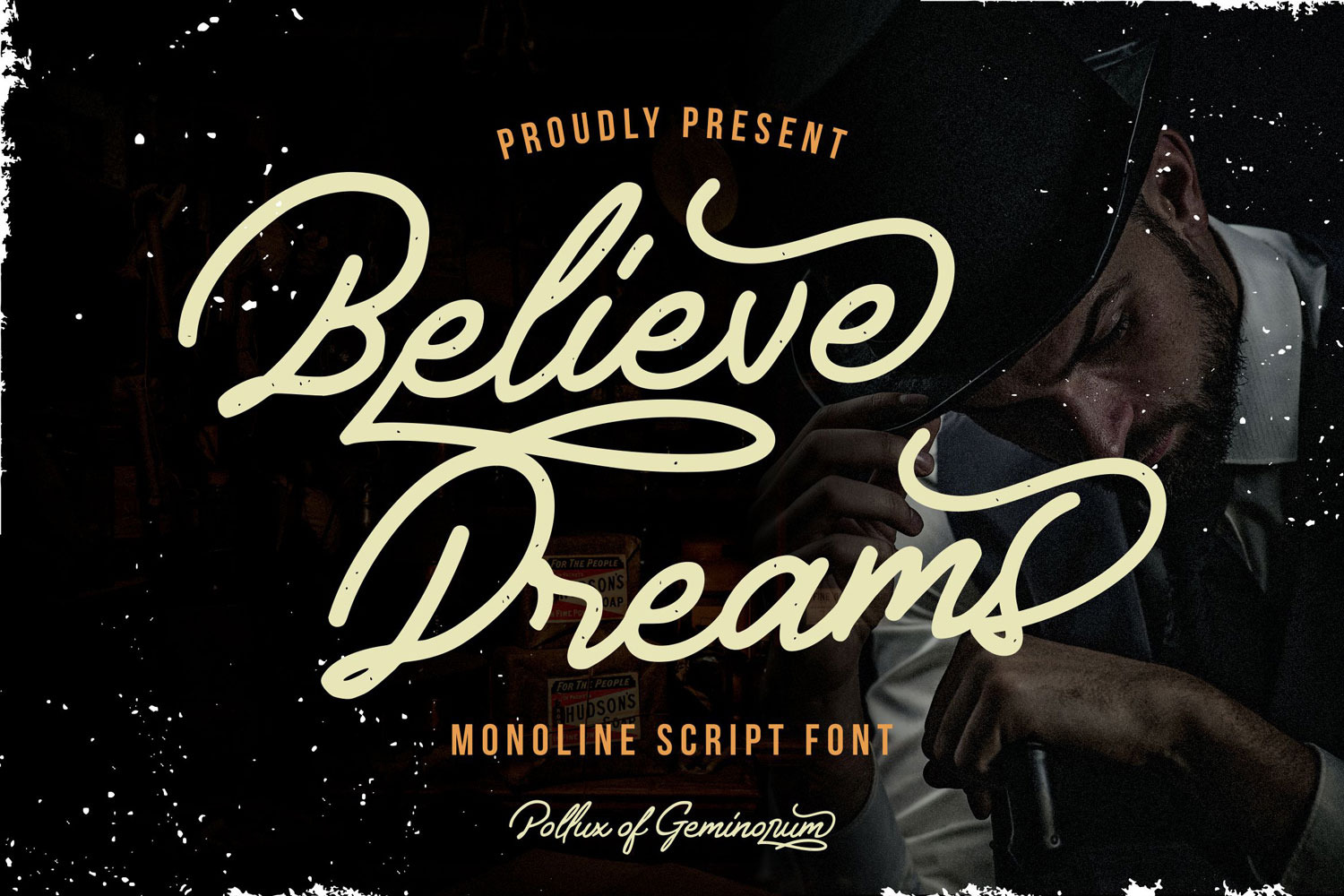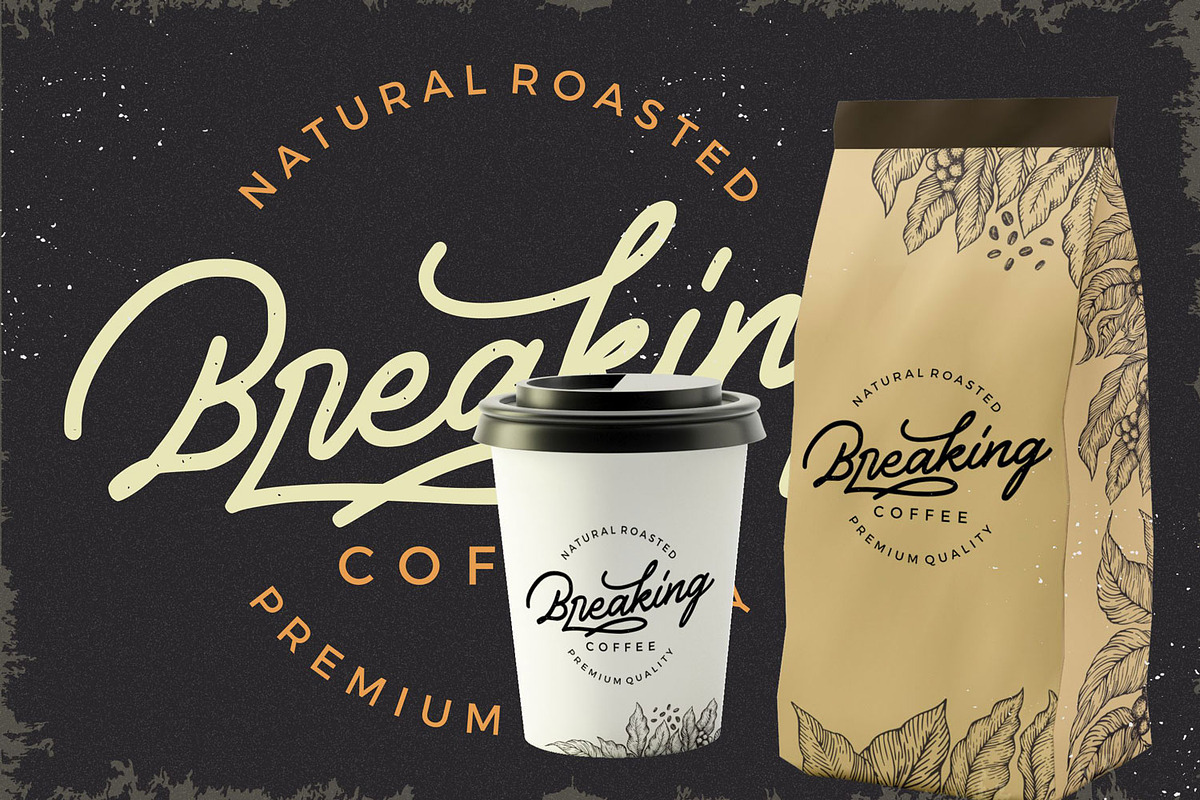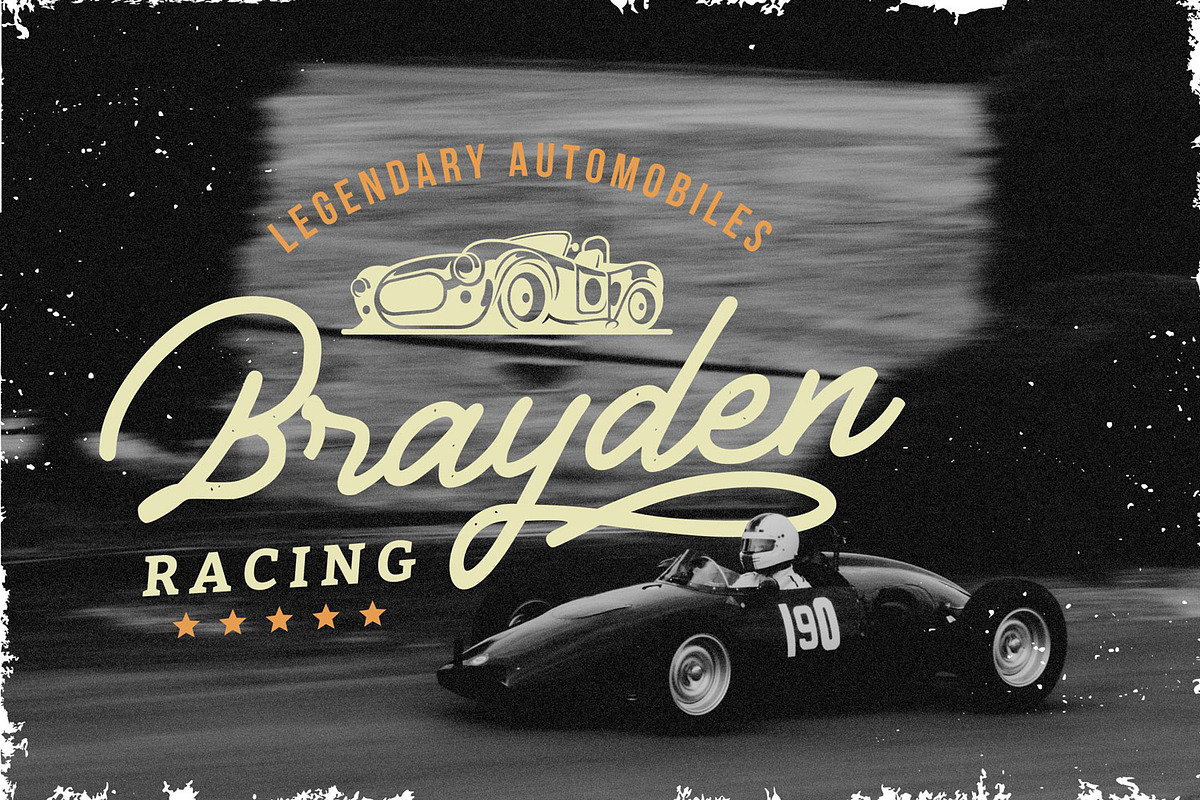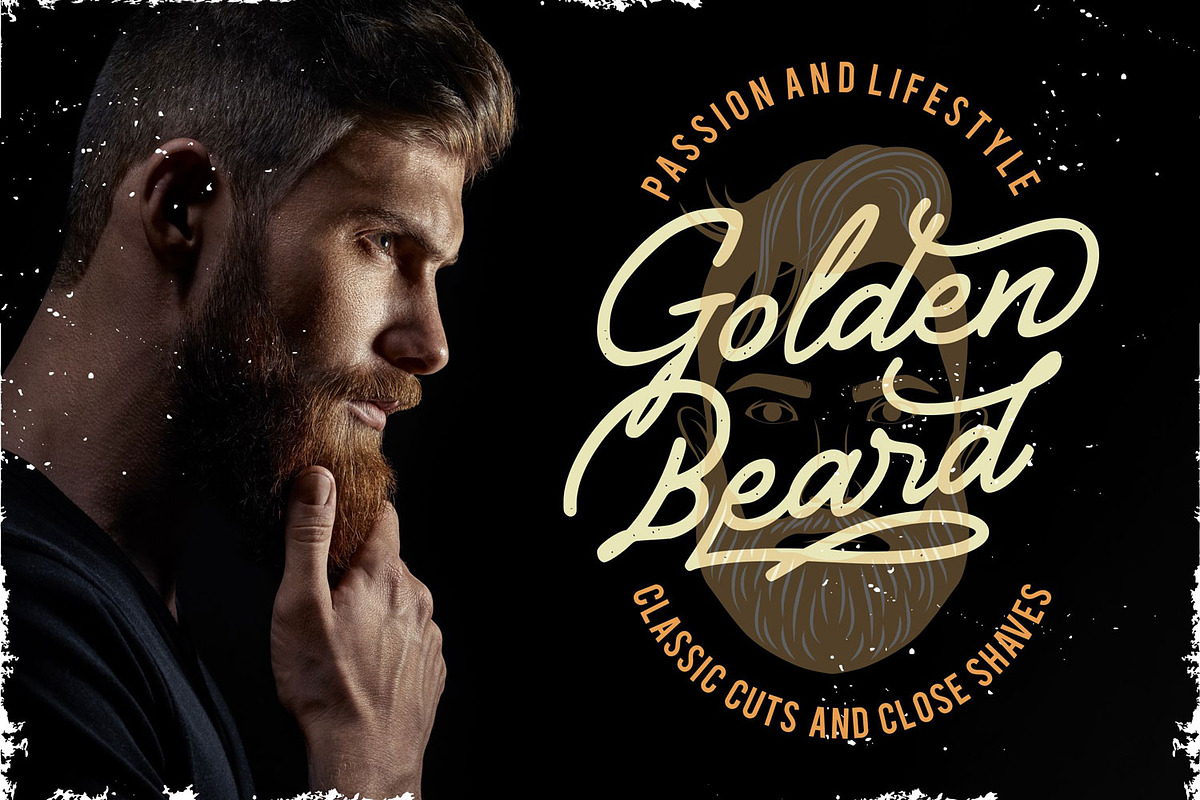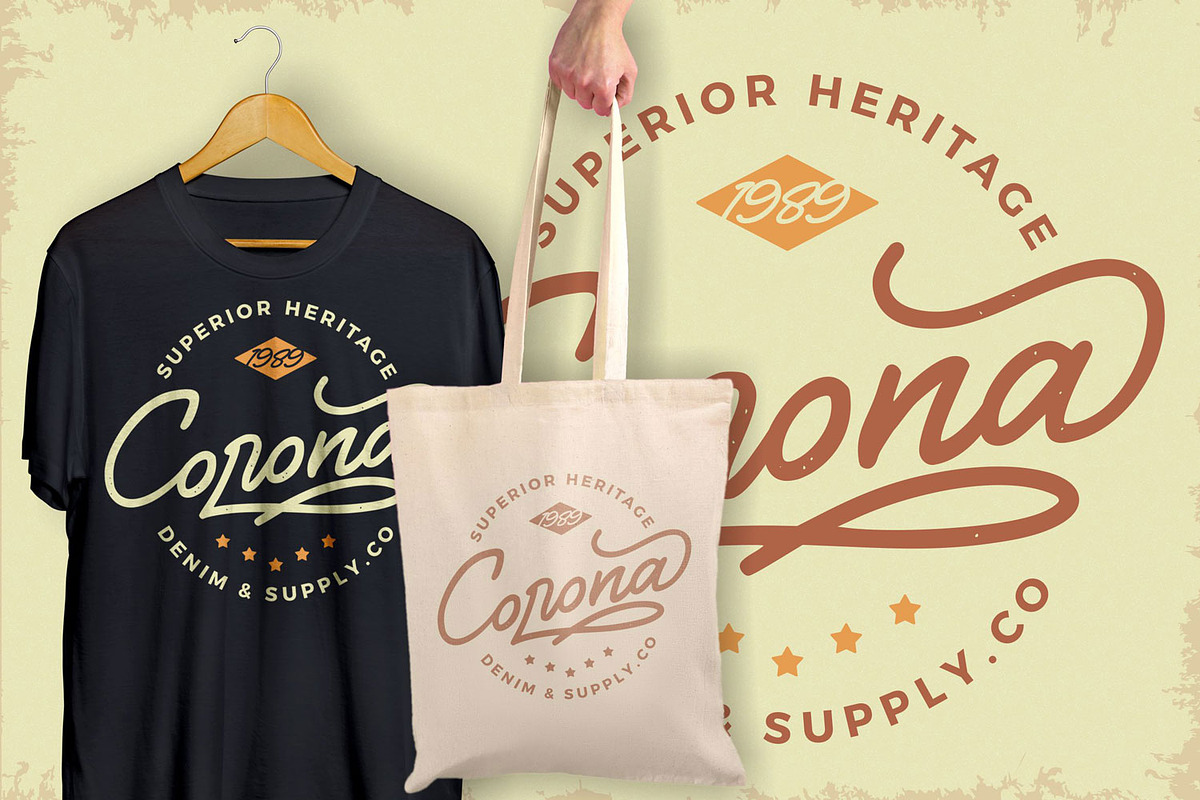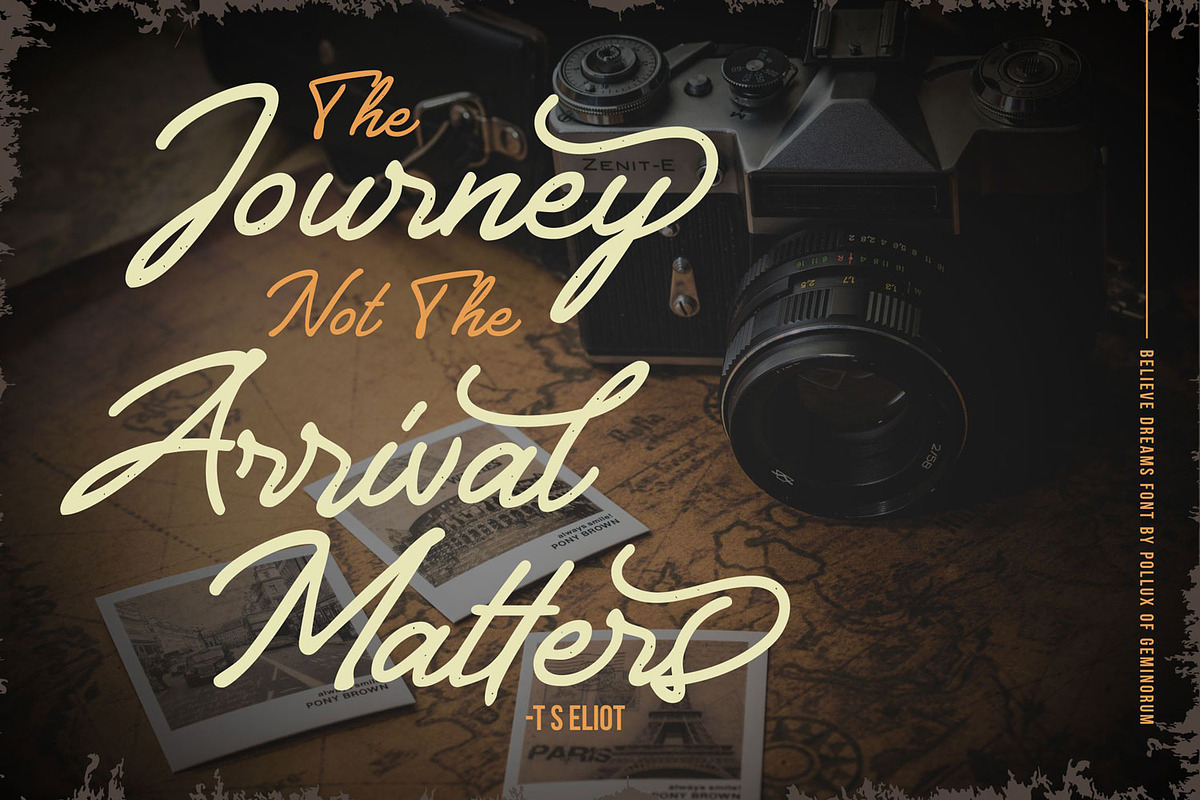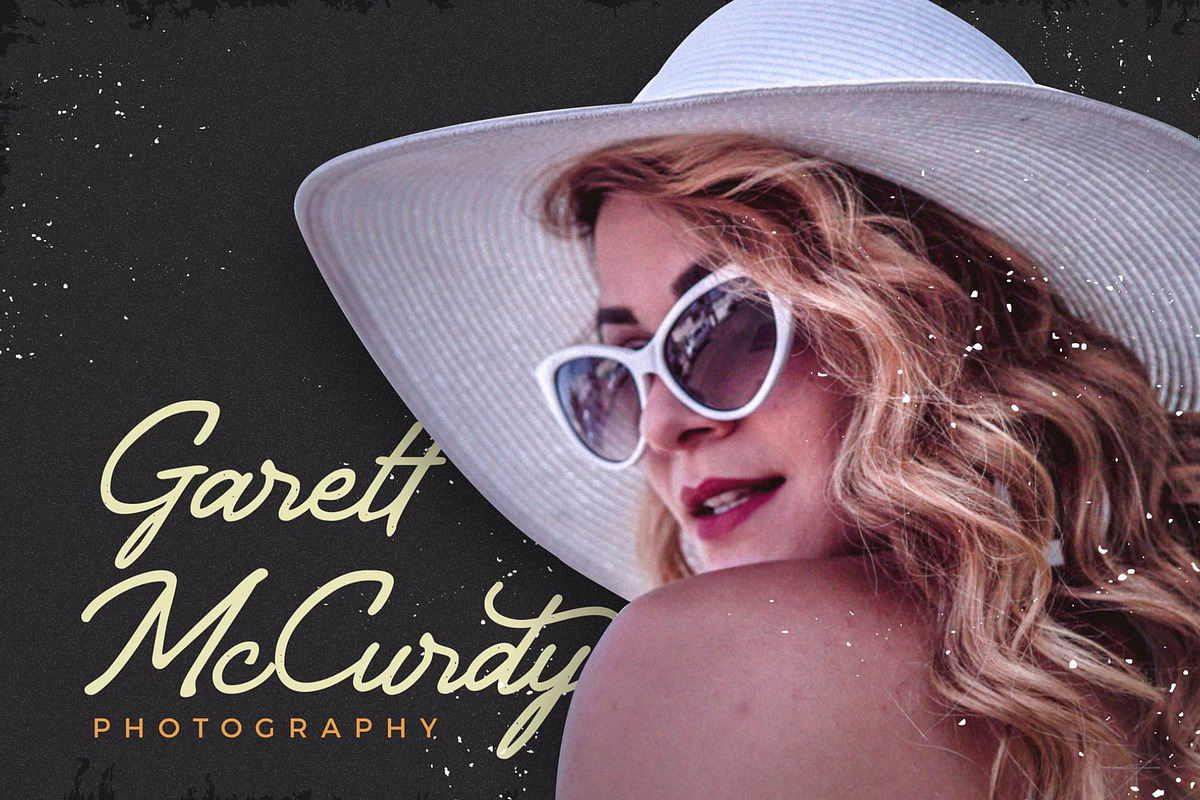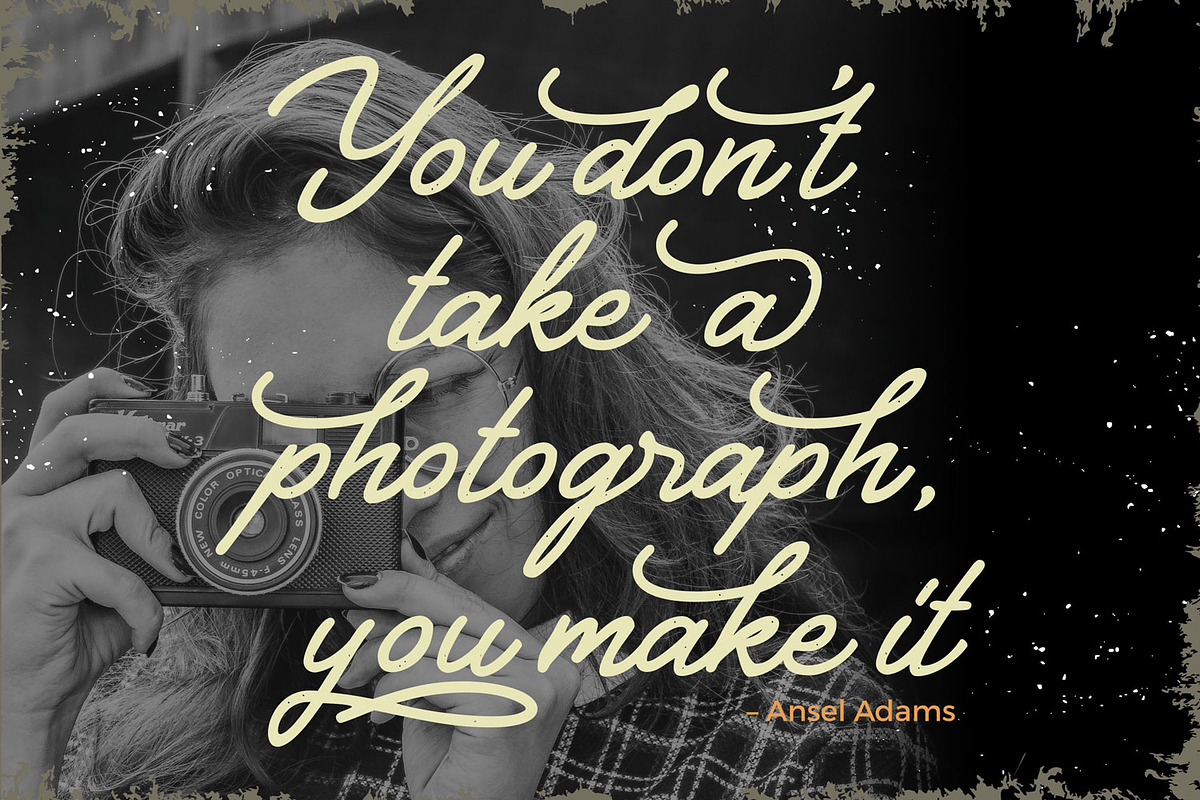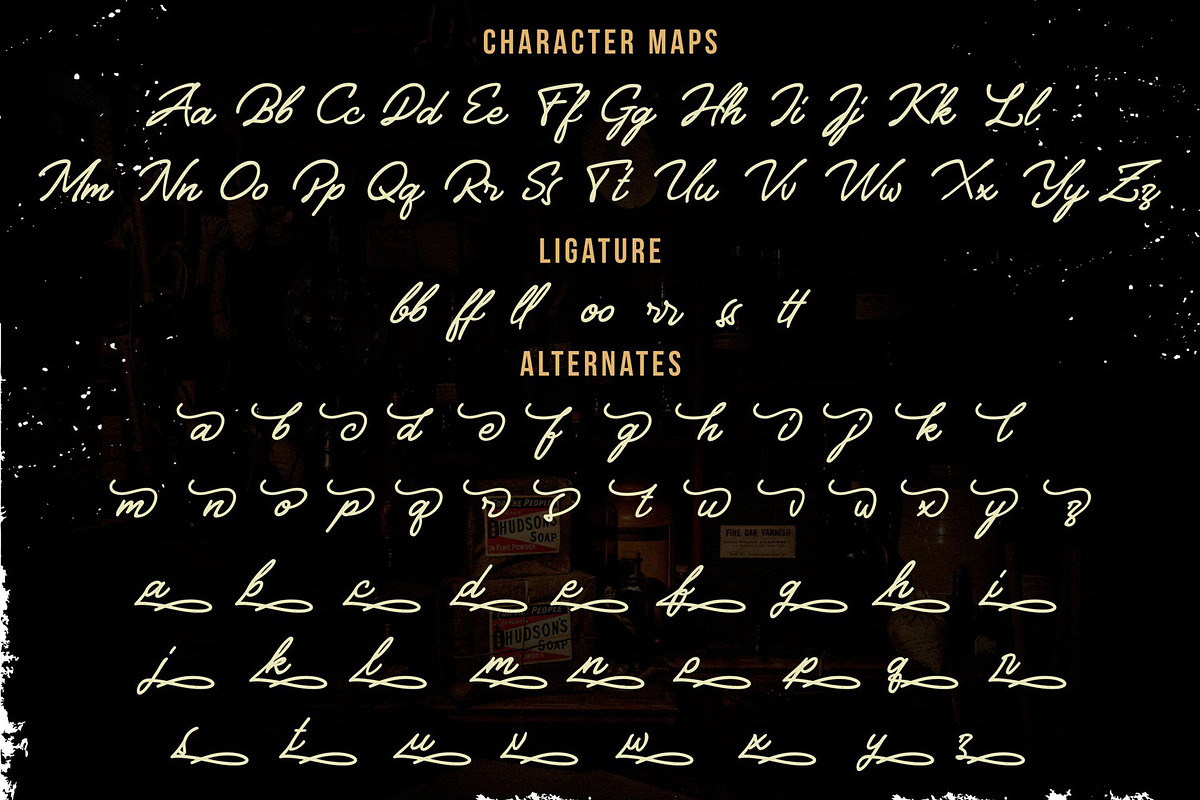
Believe Dreams - Retro Monoline Font
Capture the timeless essence of artisan craftsmanship with Believe Dreams, a classic monoline script font designed for heritage-inspired projects. With its smooth, consistent strokes and nostalgic flair, this typeface brings a professional vintage touch to any modern design.
Believe Dreams is engineered for versatility. Whether you are building a brand identity for a coffee house, designing rugged outdoor apparel, or creating a signature logo for a classic barber shop, this font provides the perfect balance of elegance and masculinity.
Why You’ll Love It:
- Artisan Monoline Style: Perfectly balanced weights for a hand-crafted look.
- Extensive Alternates: Over 50+ unique swashes and alternate characters to customize your typography.
- Smart Ligatures: Includes 7 essential ligatures (bb, ff, ll, oo, rr, ss, tt) for a natural flow.
- Multilingual Support: Ready for global branding projects.
- Full Character Set (A-Z, a-z, Numbers, Punctuation)
- Stylistic Alternates & Swashes
- Standard & Discretionary Ligatures